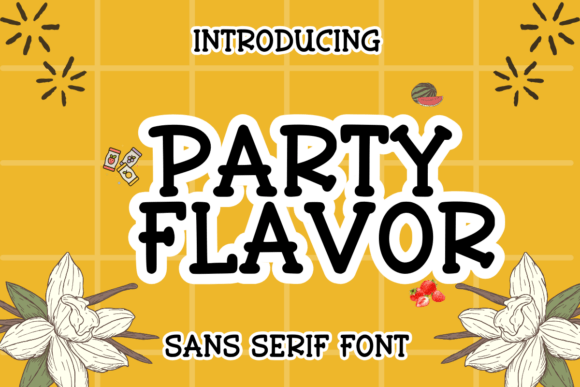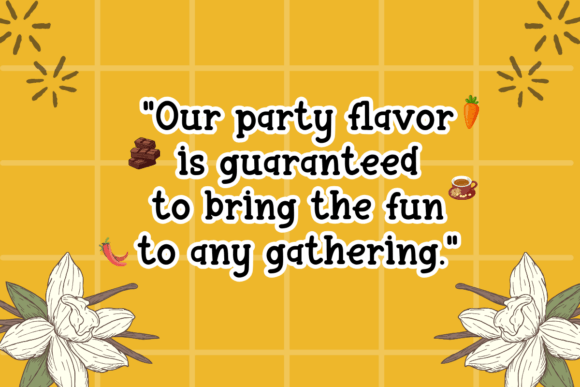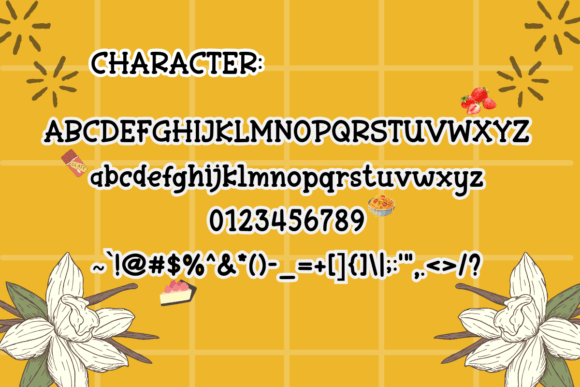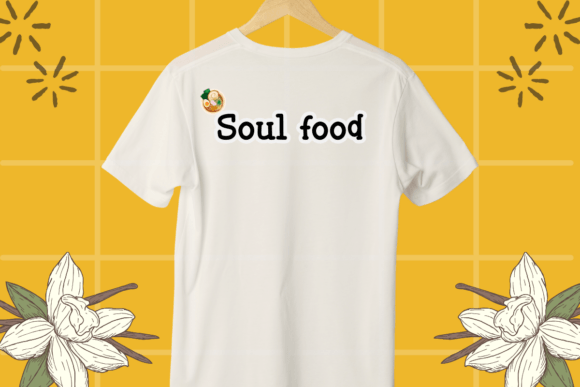
Party Flavor Font: A Fun & Playful Sans Serif for Cricut Crafts
About the Party Flavor Font
The Party Flavor Font offers a perfect balance of form and function for your design needs. Party Flavor is a fun sans serif font. A font suitable for memos, journals, notes, planners, interior KDPs, cards, invitations, scrapbooks and many other creative ideas. Apart from that, it is also suitable for cardinals, Christmas, Halloween, Buddhist, Thanksgiving, funky, fall, laser, mini calendars, laser cut, tumbler wrap, seamless patterns, basketball, zodiac, mockups, t-shirts, quotes, tarot.
Party Flavor’s playful energy makes it ideal for headlines, short text blocks on packaging, posters, and social media graphics. It excels in projects needing a fun, approachable feel, such as children’s products or event branding. However, its informal nature makes it less suitable for body text or UI elements requiring high readability.
Consider pairing Party Flavor with a clean sans-serif like Open Sans for balance, or a playful script font like Pacifico for enhanced whimsy. For a more sophisticated contrast, a geometric sans-serif like Montserrat could work well.
The font projects a bold, friendly personality, best suited to brands focusing on fun, creativity, and approachability.